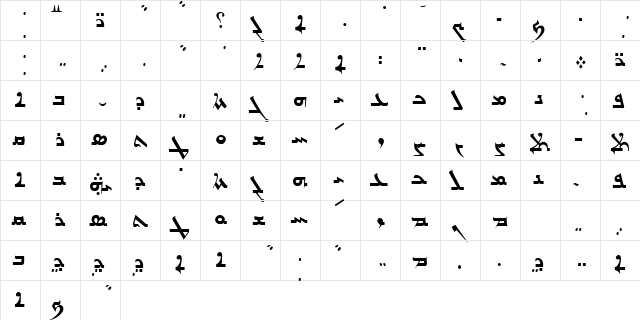
Nsiven Alap Normal
Design Context for Nsiven Alap Typeface
Nsiven Alap takes a measured approach to typography — its balanced proportions and neutral character make it a reliable workhorse for both digital and print work.